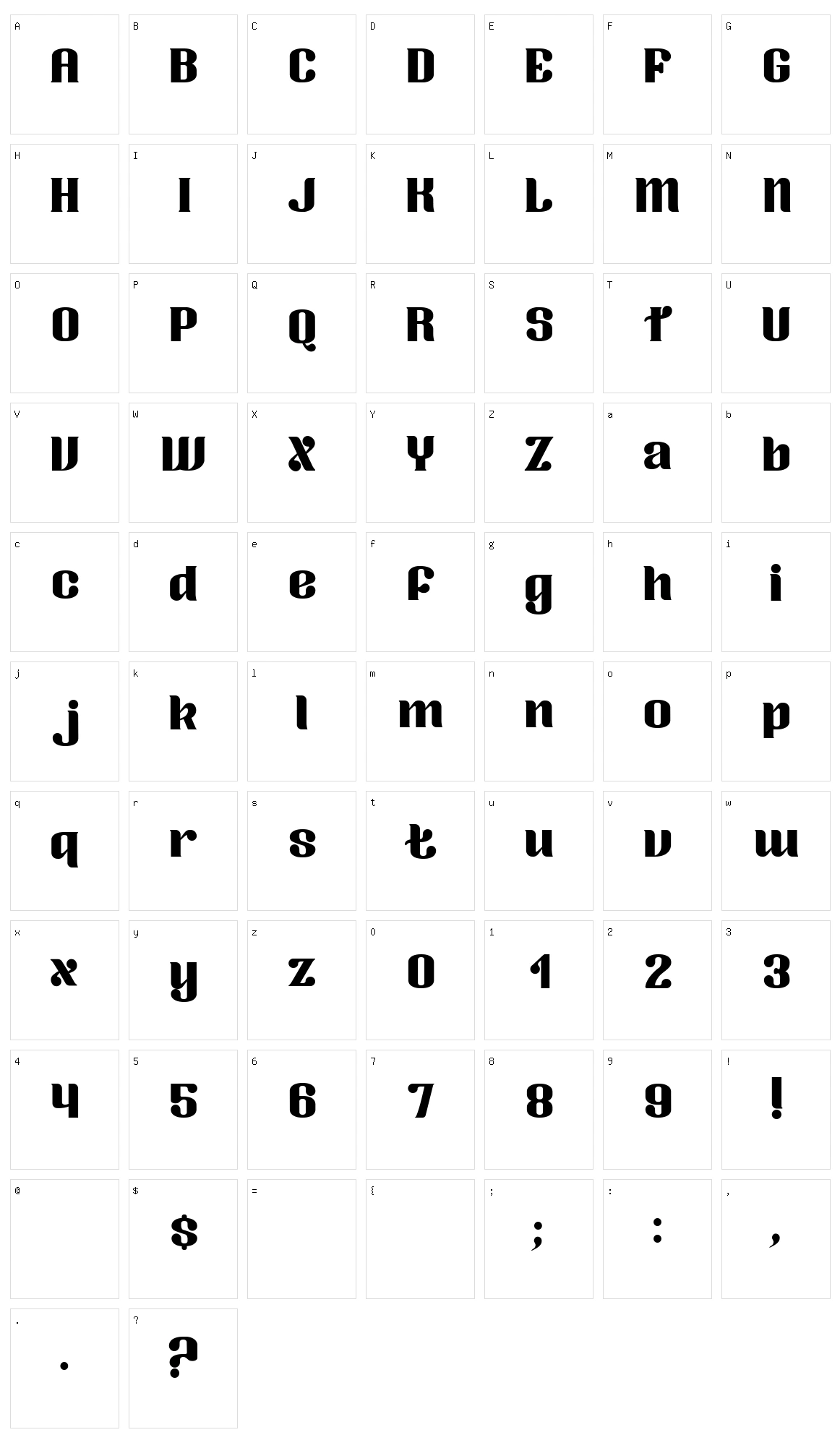
The free font Zoika is carefully designed by Victor Zanin, showcasing a thoughtful balance of creativity and usability and falls under the Retro font style. When you download the ZIP file, it contains only 1964.74 KB of font files, making it lightweight and quick to download. Please review the license details below to understand permitted usage and distribution rights. If license information is not available, we recommend using this font for personal projects only or contacting the author directly for commercial usage permissions.